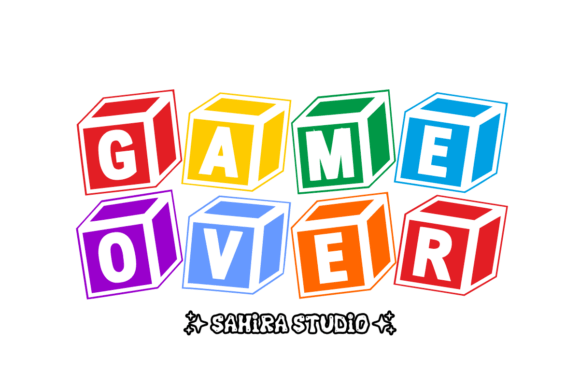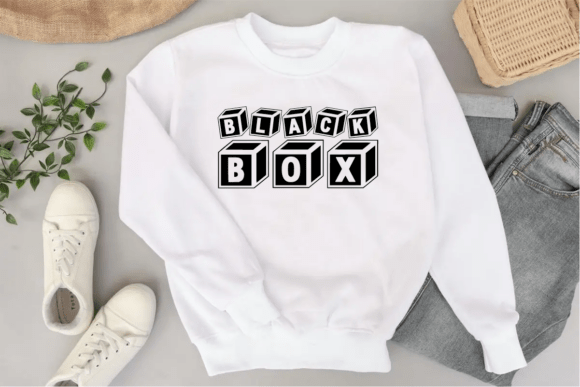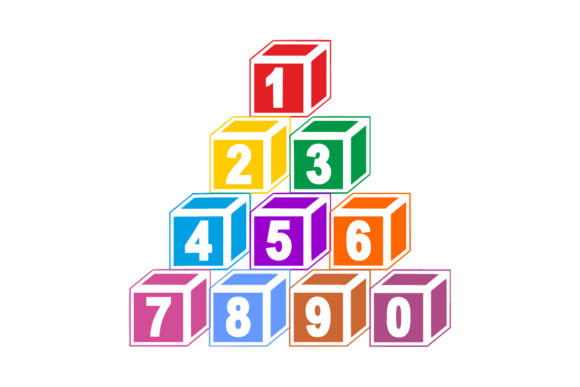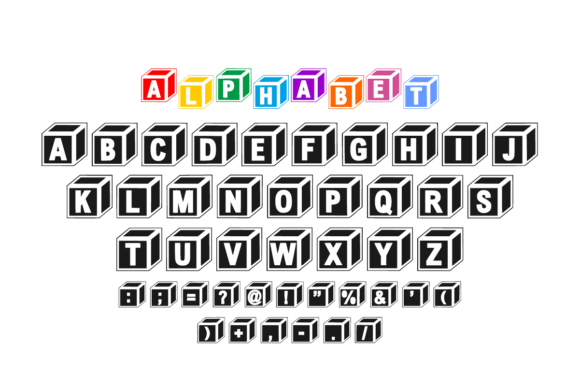
Unleash Your Creativity with the Black Box Font
Have you ever been brainstorming ideas for a children’s craft project, only to find yourself stuck in a creative rut? You’ve got a blank page, a blank mind, and a deadline looming. That’s when the magic happens – you stumble upon the perfect font, and suddenly your design comes alive!
Meet the Black Box Font, a modern, cube-shaped cartoon font designed to bring joy and whimsy to your creative projects. This charming uppercase font is made up of cute, unique characters that are sure to delight kids and adults alike. Whether you’re designing sublimated t-shirts, mugs, or tote bags, the Black Box Font is the perfect addition to your toolkit.
As a designer, you know that the right font can make all the difference in bringing your vision to life. The Black Box Font is a valuable asset to have in your arsenal, offering endless possibilities for animations, comic titles, children’s coloring books, and more. So why settle for a generic font when you can unleash your creativity with the Black Box Font?
Black Box Font Key Features
- Font Family: Black Box Font is a sans-serif font family designed for digital use.
- Unique Characteristics: Features a unique, modern design with a box-like shape, giving it a distinctive and futuristic look.
Black Box Font Review
At first glance, the Black Box font seems like an interesting choice for any design project. Here are some things that really stand out ✨
- Unique aesthetic: The Black Box font has a distinctive, avant-garde feel that can add a touch of sophistication to any design.
- Good for editorial content: The font’s bold, modern design makes it well-suited for use in editorial content, such as headlines and titles.
However, there are also some limitations to consider ⚠️
- Limited character set: The font’s character set is somewhat limited, which may make it difficult to use in certain languages or for certain types of content.
- Not suitable for body text: While the font is great for headlines and titles, it may not be the best choice for body text due to its bold, attention-grabbing design.
Overall, I’d say that the Black Box font is a solid choice for designers looking for a unique, modern aesthetic. While it may have some limitations, it’s definitely worth considering for the right project.
Black Box Font is ideal for creating modern, edgy designs.
Use it for:
1. Headings and titles.
2. Logos and branding materials.
3. Social media graphics and advertising.
4. Digital signage and presentations.
Experiment with different font sizes and colors to achieve the desired effect.
Compared to Black Box Font, Arial Rounded is more straightforward and lacks the edgy, futuristic feel of Black Box Font. However, it is a more versatile font that can be used in a wide range of applications.
2. Open Sans Condensed
Open Sans Condensed is a sans-serif font that is designed to be more condensed and space-efficient compared to the original Open Sans font. It is often used for titles, headings, and body text in digital products, especially when a clean and modern look is desired.
Compared to Black Box Font, Open Sans Condensed is more versatile and can be used in a wide range of applications, from digital products to print materials. However, it lacks the edgy, futuristic feel of Black Box Font.
Can I customize Black Box Font to fit my specific design needs?
Yes, Black Box Font is highly customizable. The font includes a range of OpenType features, such as ligatures, fractions, and stylistic sets, which can be accessed through your software application’s font menu. Additionally, the font’s design allows for subtle adjustments to be made through font size, line height, and letter spacing, giving you control over the overall look and feel of your design.